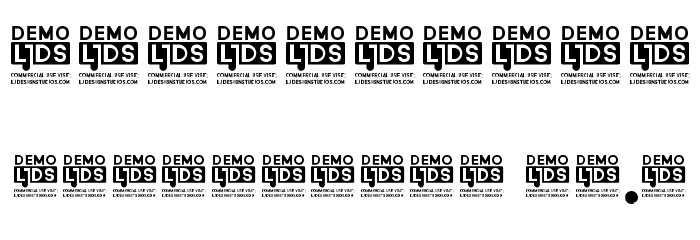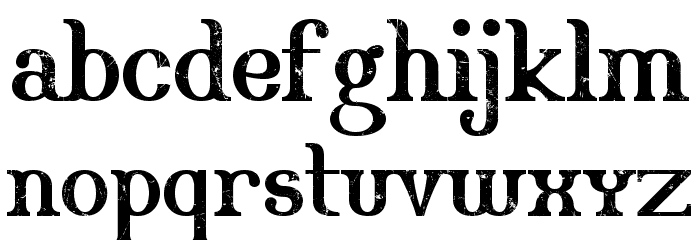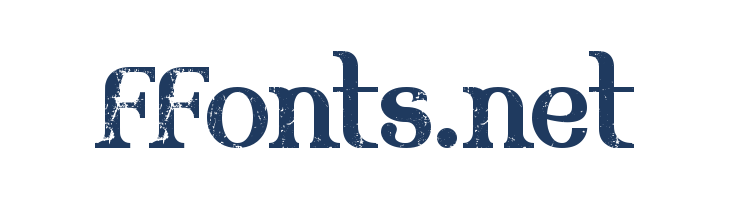
Sima Grunge DEMO Font
This font features a distressed, grunge style with a bold and rugged appearance. The characters exhibit a textured, worn look, giving them a vintage and edgy feel. The uppercase and lowercase letters maintain a consistent design, with slightly exaggerated serifs and a rough texture that adds character. The numerals and special characters follow the same aesthetic, ensuring uniformity across all glyphs. This font is perfect for projects that require a bold statement with a touch of nostalgia and rebellion.
| Overall Style | Vintage, Grunge |
| Proposed Projects | Ideal for music album covers, posters, branding for edgy or alternative products, and any design needing a strong, vintage aesthetic. |